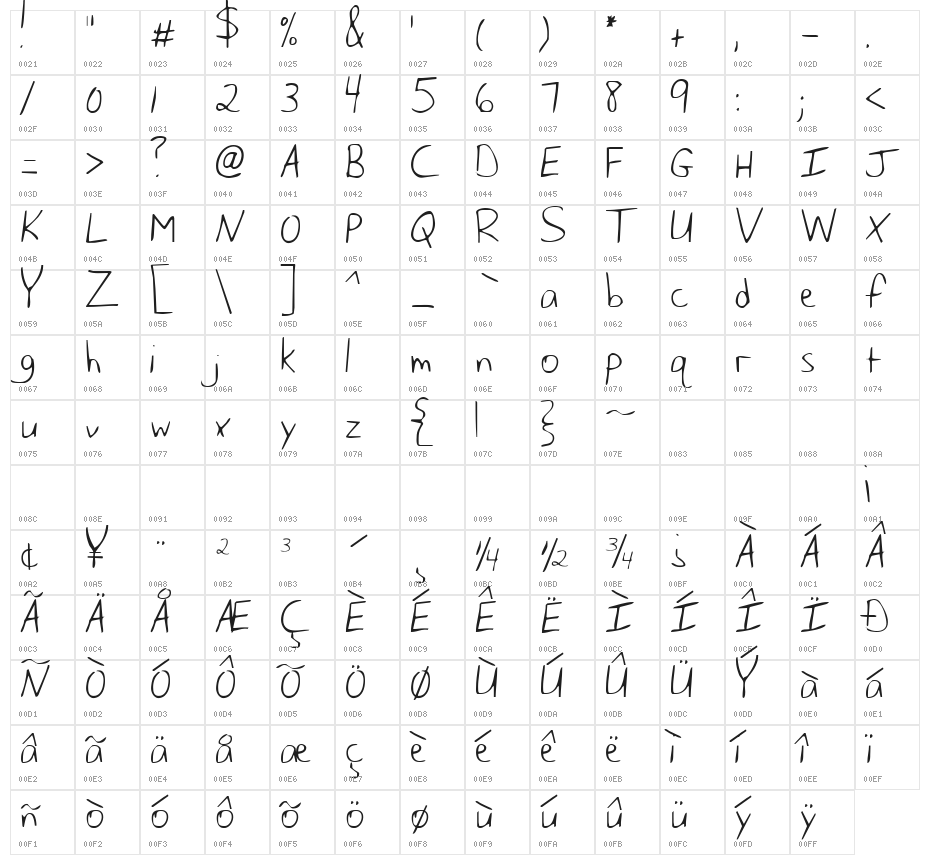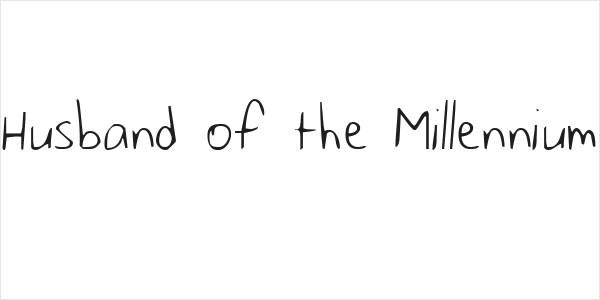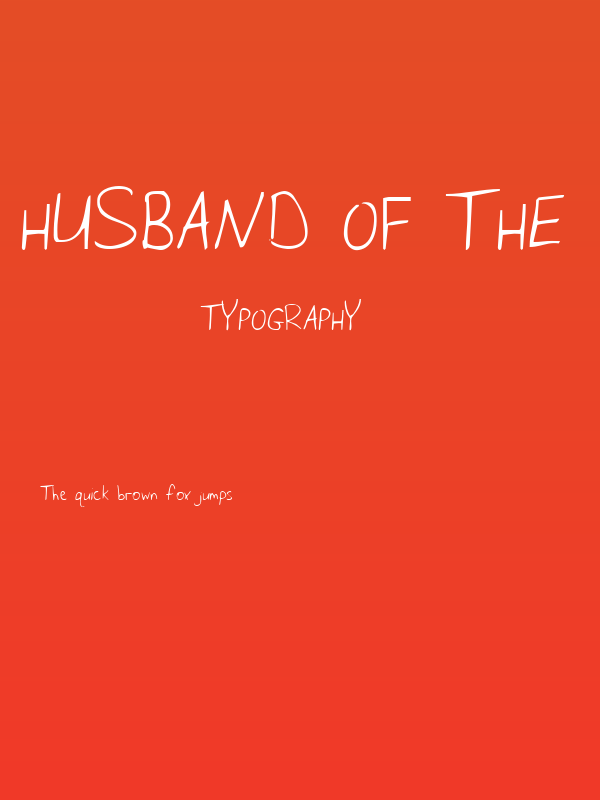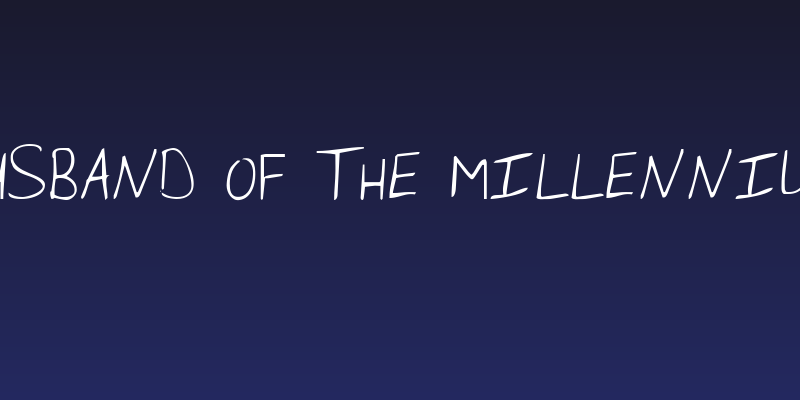
Husband of the Millennium Font
Husband of the Millennium Description
This font features a playful, handwritten style with a casual and informal appearance. The letters are slightly irregular, giving it a personal and approachable feel. The strokes are consistent in thickness, providing a uniform look across all characters. The uppercase letters are bold and prominent, while the lowercase letters maintain a friendly and inviting demeanor. Numbers and special characters are crafted with the same playful touch, making them easily recognizable and cohesive with the overall design. This font is perfect for projects that require a human touch, such as greeting cards, invitations, or personal branding.
Overall StyleCasual, Playful
Use CaseHeadlines, Informal text, Personal projects
Proposed ProjectsGreeting cards, invitations, personal branding, children's books, casual posters.